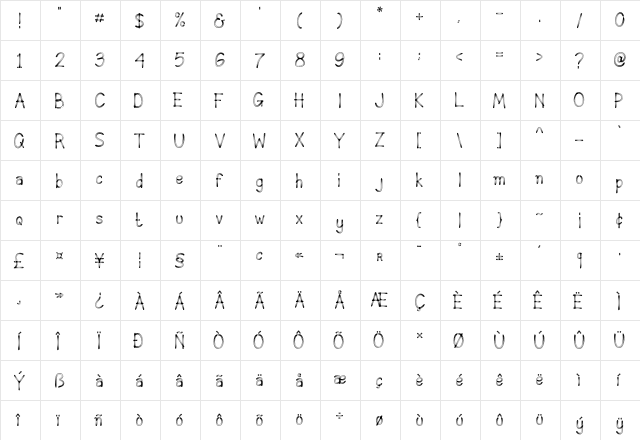
KINDLY Regular
Design Context for KINDLY Typeface
KINDLY takes a measured approach to typography — its balanced proportions and neutral character make it a reliable workhorse for both digital and print work.